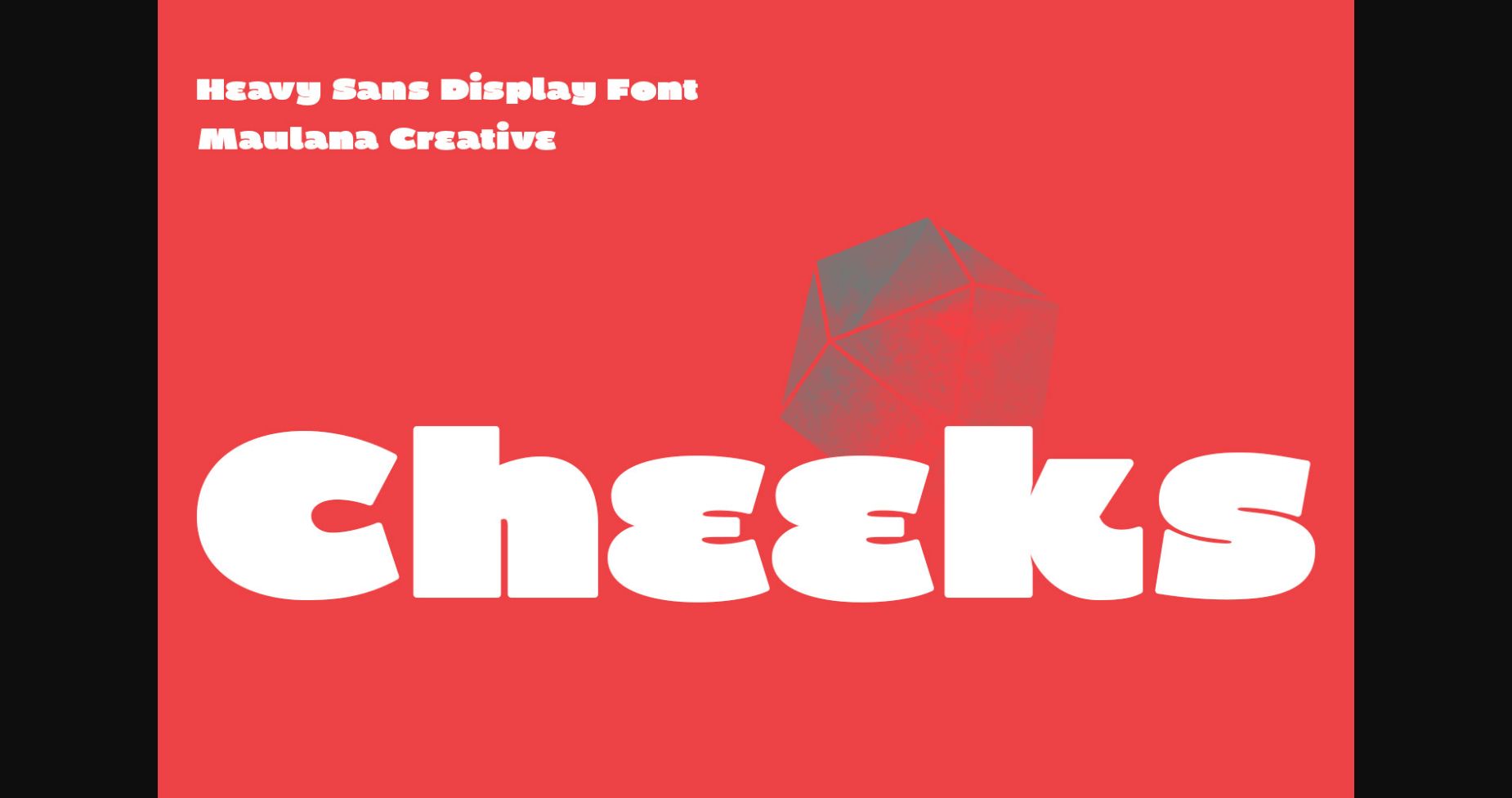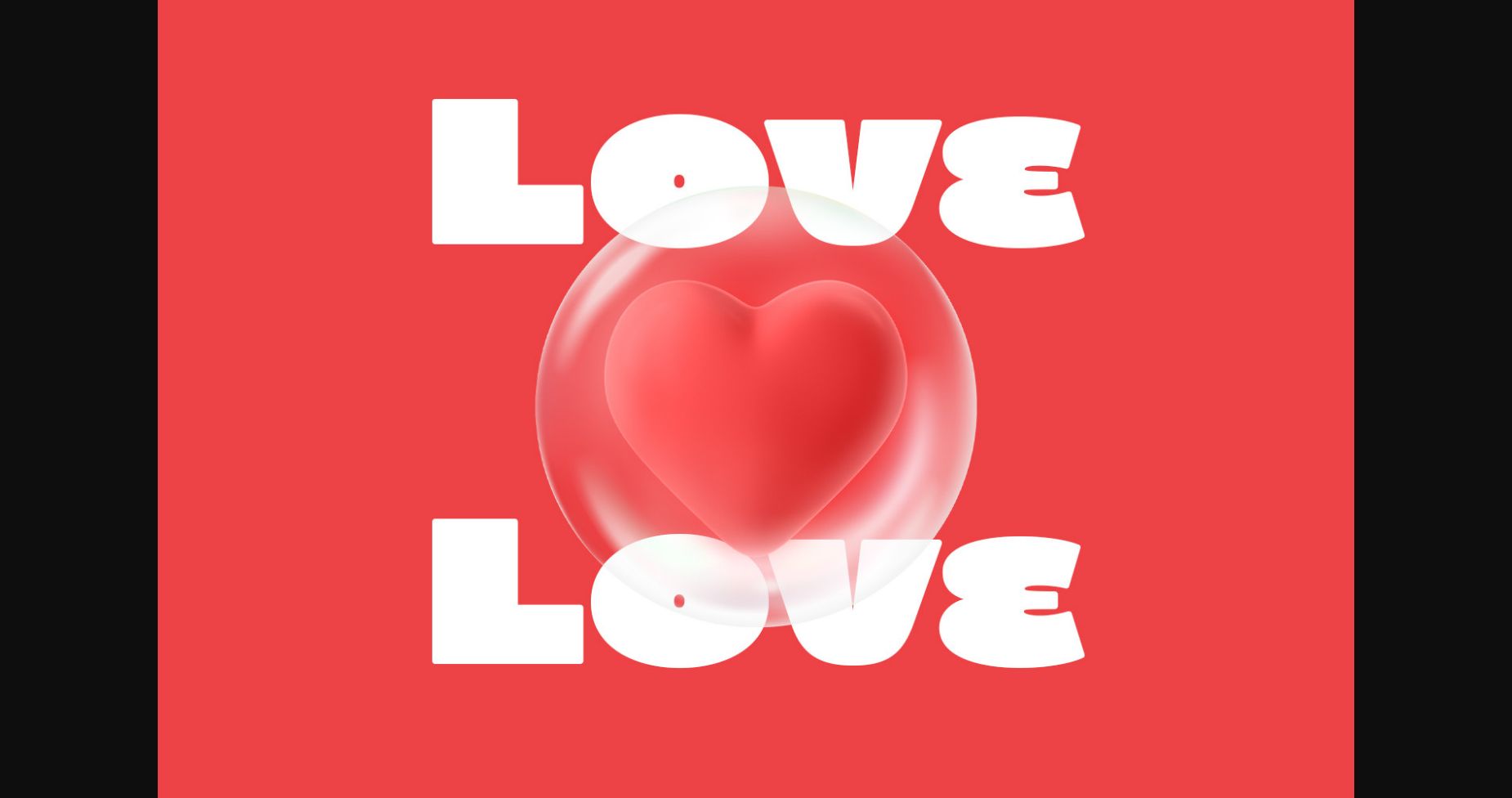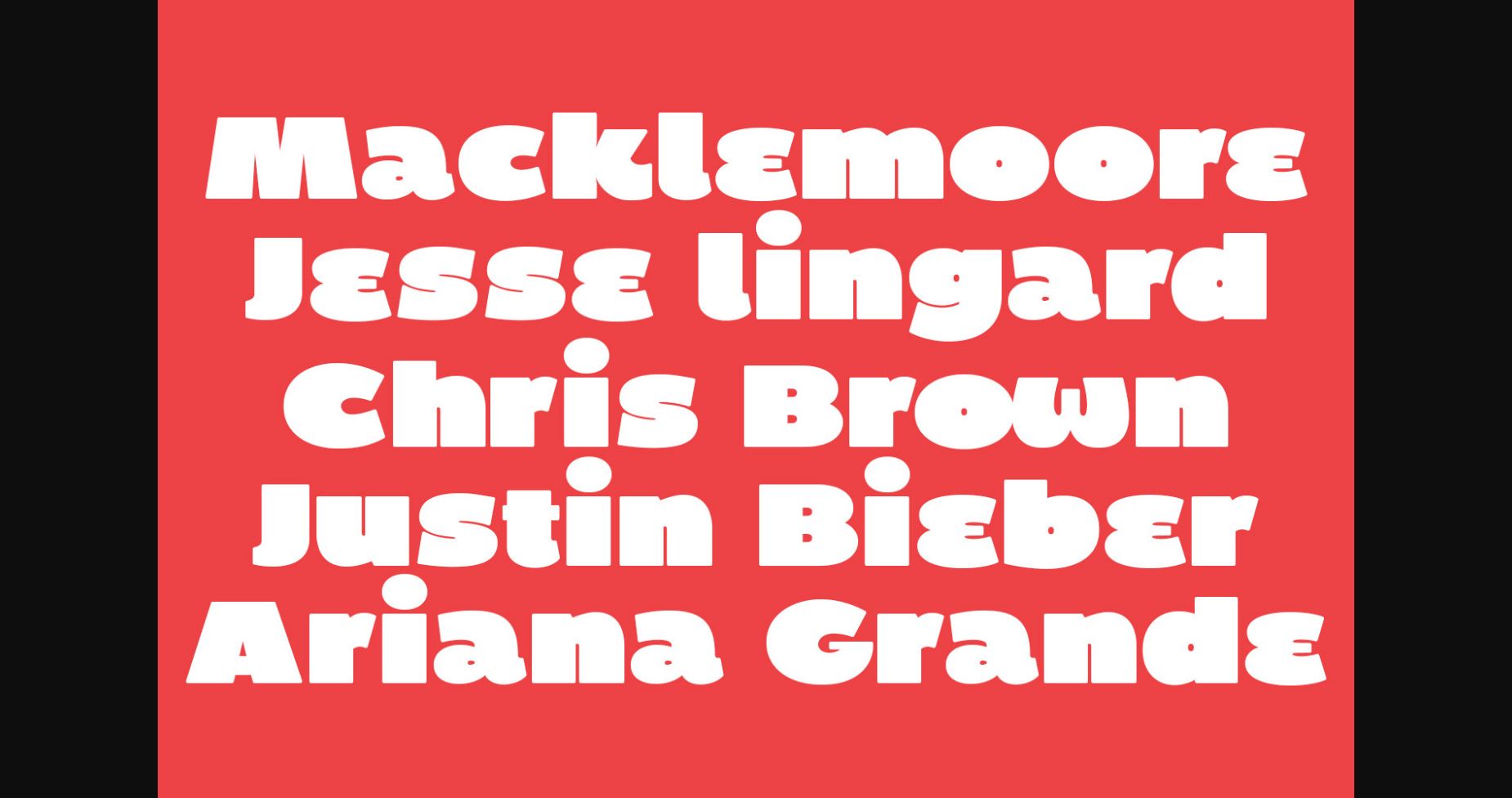
About Cheeks Font
Cheeks is a bold and distinctive sans-serif font with a chunky design that commands attention. Each letter is crafted with a unique combination of angles, curves, and strokes, resulting in a one-of-a-kind typeface that stands out in any context. Its versatile nature makes it perfect for branding, headlines, and display purposes.